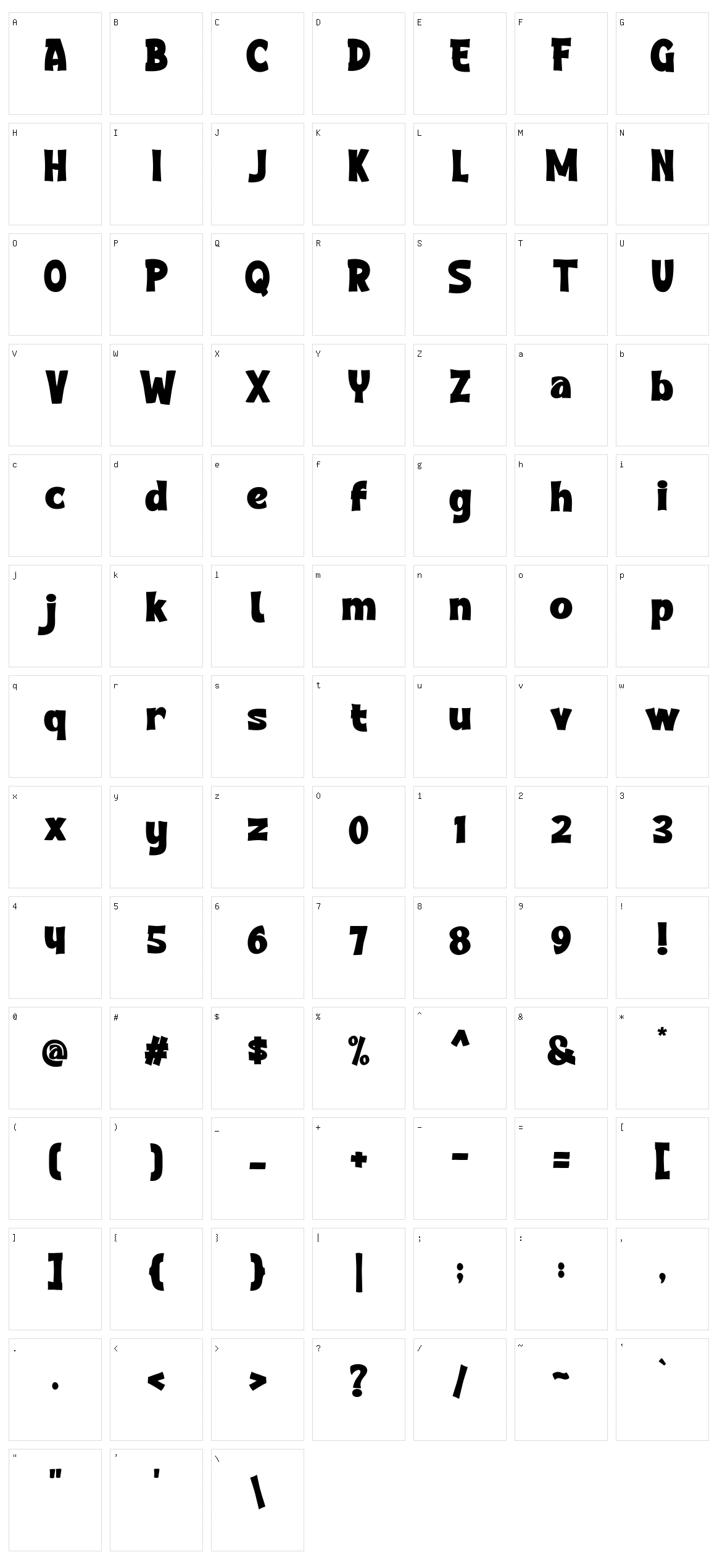
The free font Heavy is carefully designed by madeDeduk, showcasing a thoughtful balance of creativity and usability and falls under the Cartoon font style. When you download the ZIP file, it contains only 36.5 KB of font files, making it lightweight and quick to download. Please review the license details below to understand permitted usage and distribution rights. If license information is not available, we recommend using this font for personal projects only or contacting the author directly for commercial usage permissions.